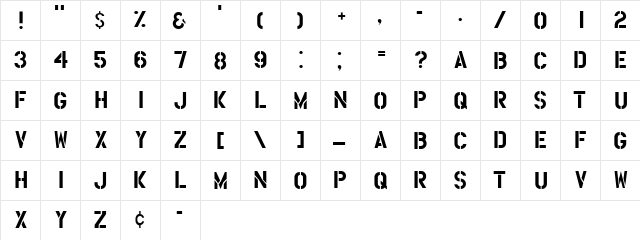
HouseBroken Regular
Design Context for HouseBroken Typeface
HouseBroken is a composed and adaptable typeface that performs quietly and consistently across a wide range of design contexts.